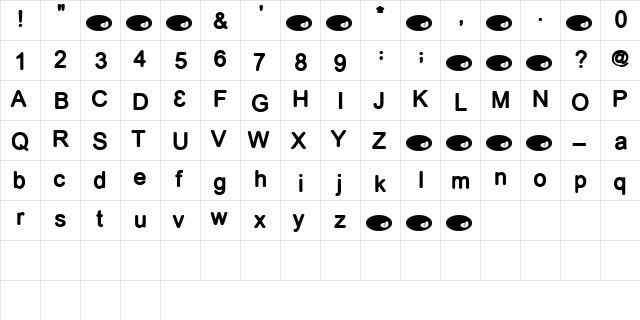
KungFuGirl Regular
Design Context for KungFuGirl Typeface
KungFuGirl offers clean, dependable letterforms without strong stylistic allegiance, making it a practical choice for designers who need flexibility.